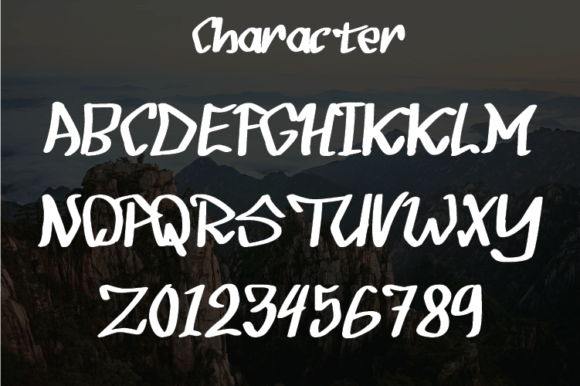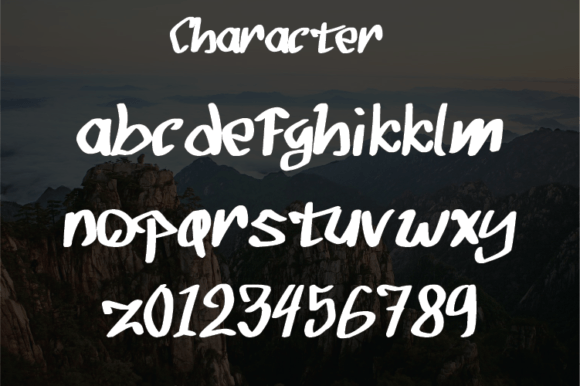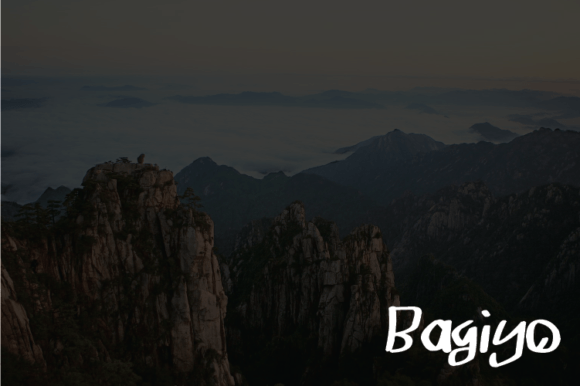
Introduction to Bagiyo Font
Bagiyo is a fun and quirky handwritten font.
Whether you are using it for cartoon-related designs, children games, quotes, titles, brand names, book covers, posters, or just any creation that requires a touch of joy, this font is a great choice .
Key Features of Bagiyo Font